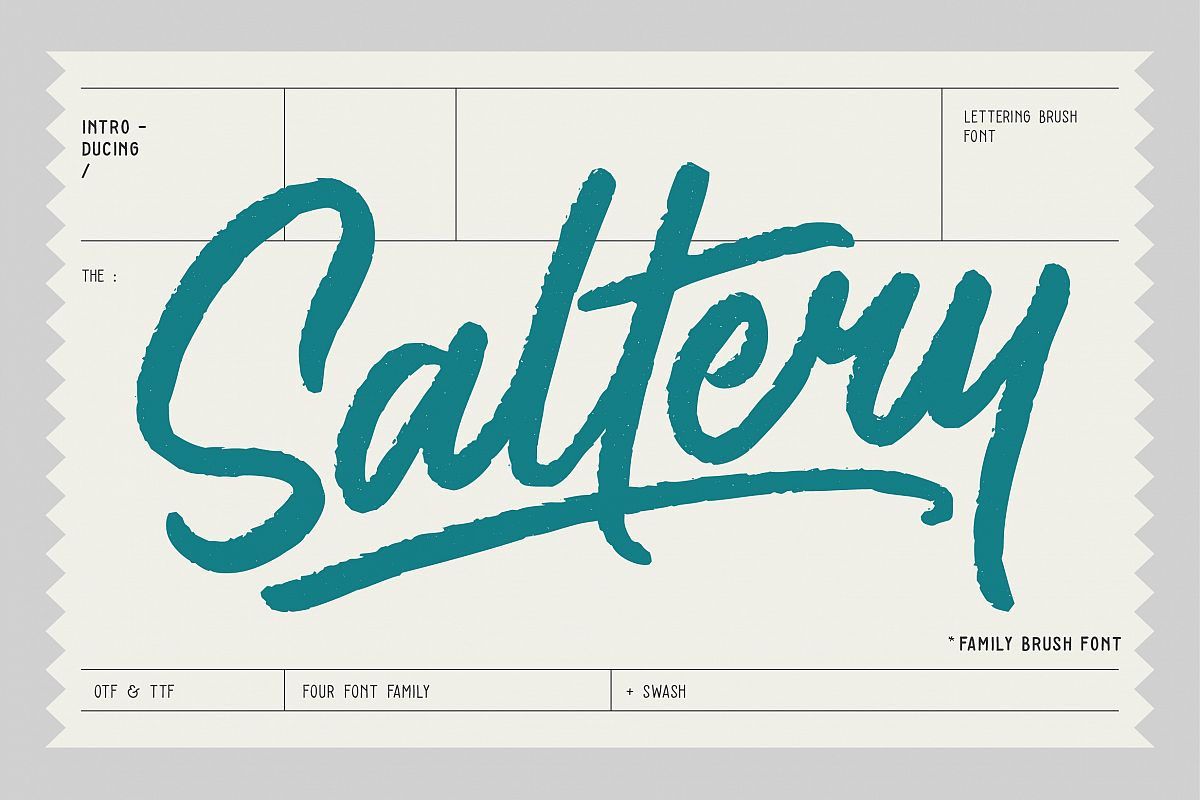
Saltery Brush Font
Saltery is modern, fresh, casual, and stylish brush font coming up with clean and rough effect fonts plus extra swash, the Saltery Family Font is made with precision to look natural like a brush stroke. Opentype Features like ligature and stylistic alternates complement each font to look dynamic, and stylish make your design more attractive.File Includes :
• Saltery Regular ( Clean)
• Saltery Rough
• Saltery Alternate ( Clean )
• Saltery Alternate Rough
• Swash